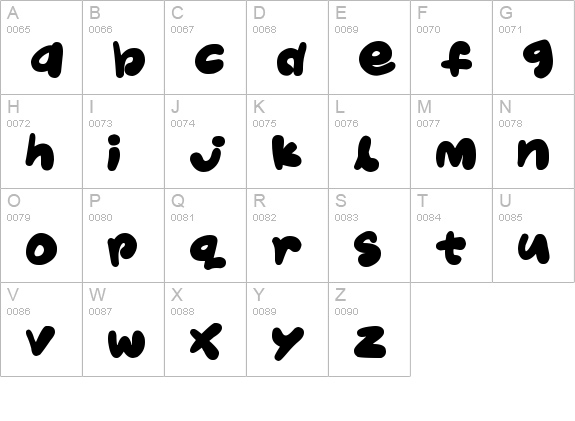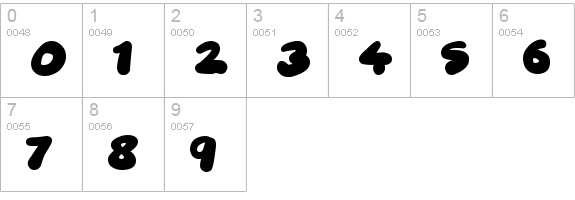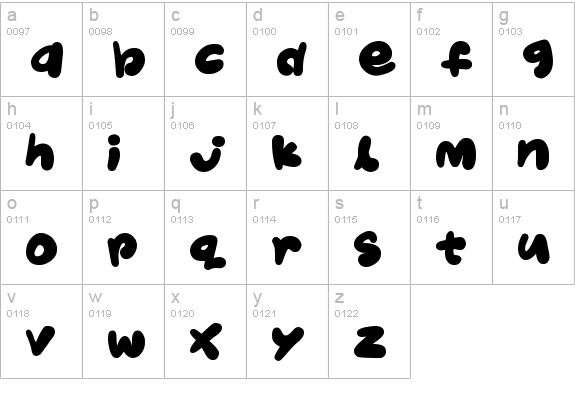
Jelly Kids Font Details
Jelly Kids is a free for personal use font in the Fancy > Comic category, designed by Darrell Flood. It has been downloaded 34 times and is available for Windows, Mac and Linux.
Jelly Kids font is a whimsical and playful typeface that embodies the essence of childhood fun and creativity. Its rounded edges and bubbly letters give off a cheerful and lighthearted vibe, making it perfect for projects aimed at kids or those that require a touch of innocence and joy.
Let Jelly Kids font add a touch of sweetness and whimsy to your designs, making them stand out and capture the hearts of all who see them. Download it for free today and let your creativity run wild with this delightful typeface!